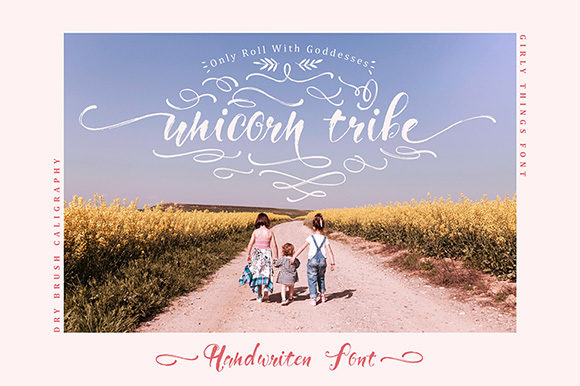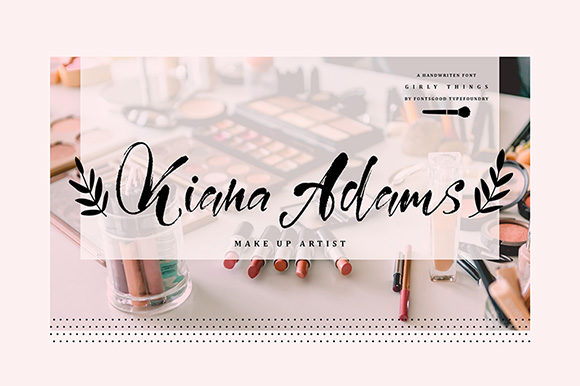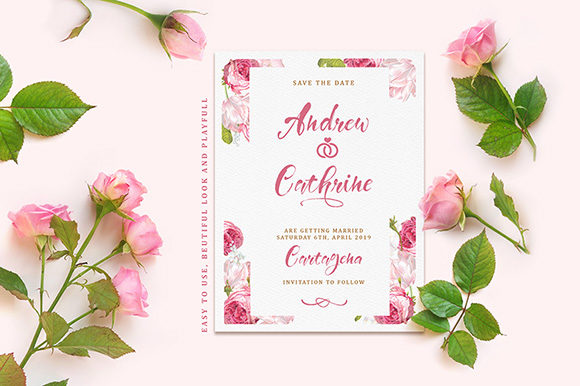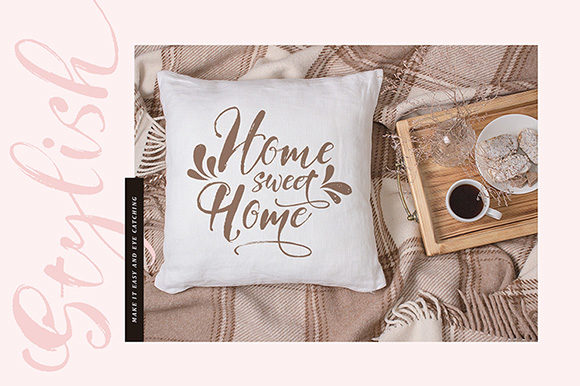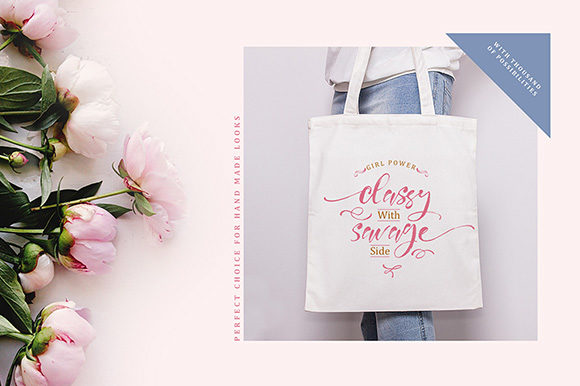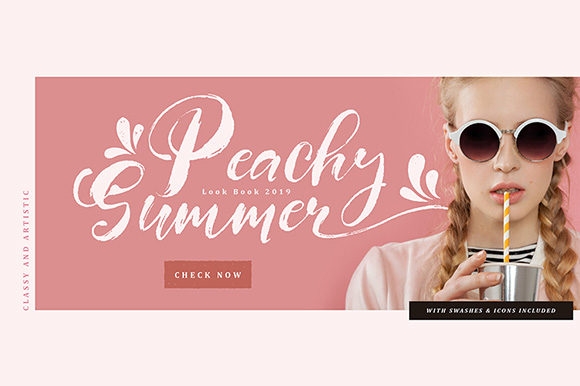
Introduction to Girly Things Family Font
The Girly Things is a feminine font family.
It includes 7 styles and a pack of icons and curly swashes It’s the perfect font family to add to your library for creating endlessly unique designs.
Key Features of Girly Things Family Font
Why Choose Girly Things Family Font?